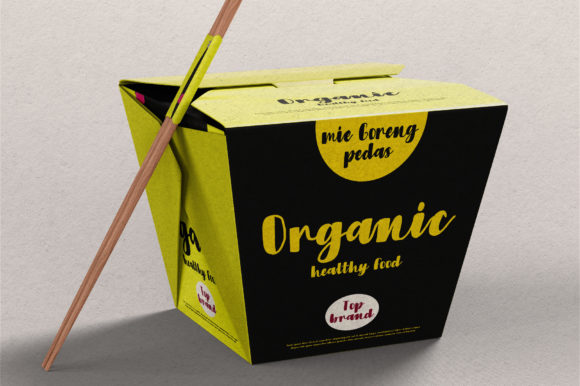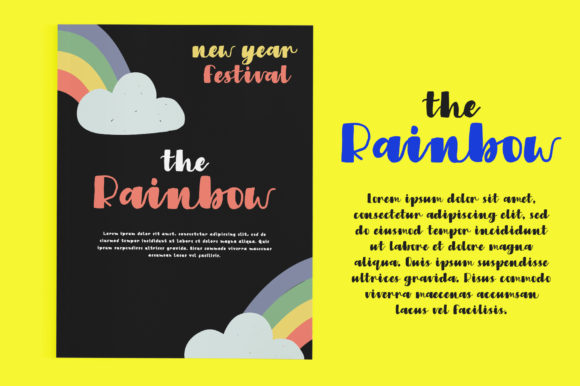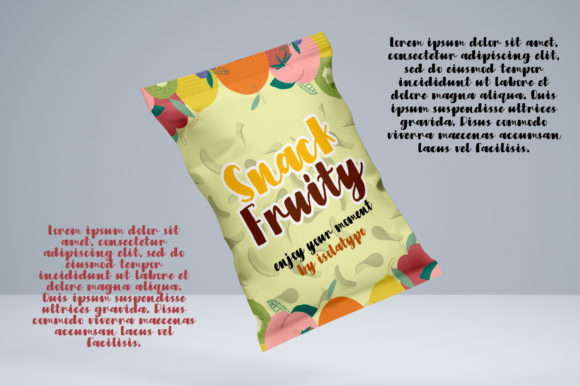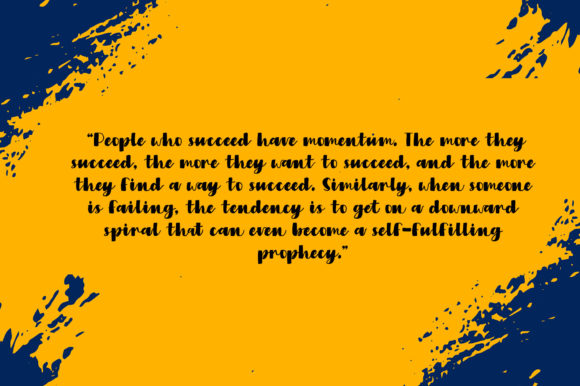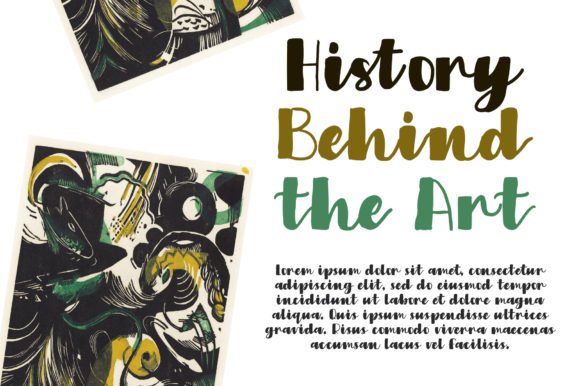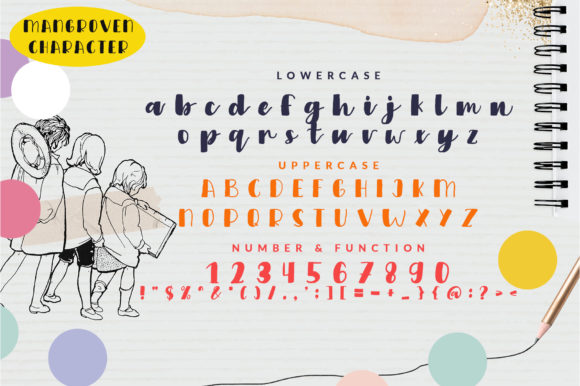
Introduction to Mangroven Font
Have you ever stared at a blank page, waiting for inspiration to strike? That’s where I was when I stumbled upon the Mangroven Font. Its bold, handwritten style immediately caught my eye, and I knew I had to learn more. This gorgeous font is a game-changer for designers looking to add a stylish touch to their headlines and logotype projects.
What sets the Mangroven Font apart is its unique blend of strength and character. It’s perfect for designers who want to create a sense of nostalgia in their projects without sacrificing modern appeal. With its high-quality design and transparent background, this font is a valuable resource for any creative project.
Key Features of Mangroven Font
- High-quality design resource with a unique, artistic style perfect for creative projects.
- Unique characteristics include hand-drawn elements, subtle texture, and a natural, organic feel.
- Perfect for use in design projects requiring a creative, earthy vibe, such as nature-inspired illustrations or environmental branding.
Honest Review: Mangroven Font
As a designer, I’m always on the lookout for high-quality design resources to elevate my creative projects. The Mangroven Font caught my attention, and I decided to give it a try.
Here are the things that work well with the Mangroven Font:
- ✨ High-quality vector design, perfect for both digital and print projects
- ✨ Versatile font, suitable for a wide range of creative projects
- ⚠️ Limited character set, which may not be suitable for projects requiring a wide range of characters
Overall, I’m impressed with the Mangroven Font’s design and versatility. It’s an excellent design resource for any creative project, especially those requiring a transparent background. While it may have some limitations, I believe it’s a valuable addition to any designer’s toolkit.
Tips for Getting the Most Out of Mangroven Font
Use the Mangroven Font in combination with other design elements to create a unique and eye-catching design. Experiment with different font sizes, colors, and styles to add depth and interest to your project. Also, take advantage of the font’s transparent background to create complex and layered designs.
Common Use Cases for Mangroven Font
The Mangroven Font is a versatile design resource that can be used in a variety of creative projects, including logos, business